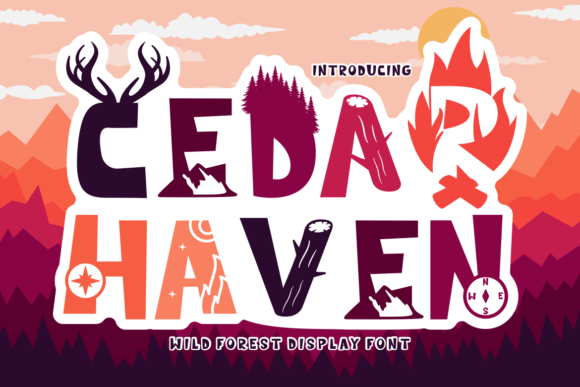
Introducing Cedar Heaven – Wild Forest Display Font
Are you ready to unleash your creativity and bring the magic of the wilderness into your designs? Look no further than Cedar Heaven, a playful and adventurous typeface that embodies the spirit of outdoor exploration and childhood wonder. This meticulously crafted font is designed to transport you and your audience to a world of natural beauty, making it perfect for designers, crafters, and outdoor enthusiasts alike.
A Font Inspired by Nature
Cedar Heaven is more than just a font – it’s an experience. With its roots firmly planted in the natural world, this typeface is infused with the elements of the forest, camping, and playful adventures. The letters are designed to evoke a sense of freedom and joy, making it an ideal choice for projects that celebrate the great outdoors. Whether you’re branding an outdoor equipment store, designing invitations for a woodland-themed event, or creating materials for a nature-inspired campaign, Cedar Heaven is the perfect companion.
One of the standout features of Cedar Heaven is its versatility. This font comes in eight distinct variations, each carefully crafted to fit its thematic design. This range of options allows you to choose the perfect style to match your project’s tone and personality. From bold and adventurous to light and playful, Cedar Heaven has a variation to suit every need.
Cedar Heaven’s unique character makes it an excellent choice for a wide range of projects. Here are just a few ideas to get you started:
• Children’s Books: Bring stories to life with a font that’s both fun and adventurous.
• Crafters’ Creations: Add a touch of whimsy and personality to your handmade crafts and products.
• Outdoor Branding: Perfect for logos, branding materials, and packaging for outdoor gear and equipment.
• Event Invitations: Create eye-catching invitations for woodland-themed events, parties, and gatherings.
• Posters and Titles: Stand out with bold, eye-catching titles and posters that capture the essence of the great outdoors.
Seamless Integration of Nature and Typography
What sets Cedar Heaven apart is its ability to link nature and typography seamlessly. The font’s distinctive charm brings a fresh perspective to your designs, allowing you to communicate your message in a way that’s both visually appealing and engaging. Whether you’re looking to create a bold statement or a subtle hint of the natural world, Cedar Heaven provides the perfect tools.
With Cedar Heaven – Wild Forest Display Font, you’re not just choosing a typeface; you’re embracing a design experience that connects you and your audience with the natural world. Its playful, adventurous spirit is contagious, making it an excellent addition to your font library. So why wait? Dive into the world of Cedar Heaven and discover how this extraordinary font can elevate your designs, bringing a touch of wild forest magic to your projects.
Cedar Heaven – Wild Forest Display Font is a game-changer for designers, crafters, and outdoor enthusiasts looking to infuse their projects with the spirit of adventure and the beauty of the natural world. Its versatility, unique character, and technical compatibility make it an indispensable tool for a wide range of applications. By choosing Cedar Heaven, you’re not just selecting a font; you’re embracing a creative approach that connects typography with the great outdoors, promising to take your designs to new and exciting heights.